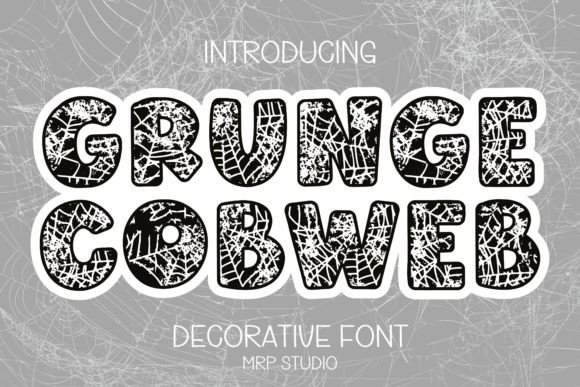
Welcome to the hauntingly delightful world of Grunge Cobweb, a decorative font style that will cast a spell on your designs. Its spooky charm is perfect for Halloween party decorations, back-to-school projects, and any occasion where you want to add a touch of eerie elegance.
Imagine your invitations, posters, and greeting cards adorned with the Grunge Cobweb font, sending shivers down the spines of your recipients. The intricately designed letters, reminiscent of a spider's web, will create an atmosphere of mystery and intrigue that will leave a lasting impression.
This font is not just limited to Halloween-themed projects. Its unique aesthetic can add a touch of whimsy and charm to any design. Use it to create eye-catching logos, social media posts, and website headers that will grab attention and make your content stand out from the crowd.
With Grunge Cobweb, you'll have the power to transport your audience to a world of enchantment and intrigue. Its versatility knows no bounds, making it the perfect choice for creative projects of all kinds. Unleash your imagination and let the Grunge Cobweb font take you on a journey of spooky delight.
So, if you're ready to add a touch of spooky sophistication to your designs, download the Grunge Cobweb font today. Its haunting beauty will cast a spell on your audience, leaving them captivated by your creations. Embrace the dark side of creativity and let your imagination run wild.
With Grunge Cobweb, every project becomes a haunting masterpiece. Dare to embrace the eerie elegance and create designs that will leave a lasting impression. Download now and let the magic begin!